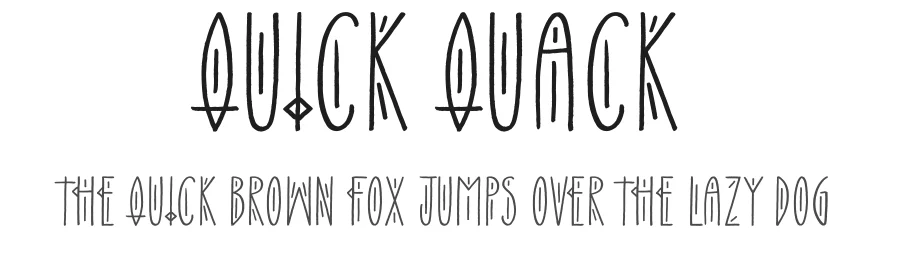
About Jump Burn IP Font
| Designer | Le Thi Thu Huong (Poemhaiku) |
Jump Burn IP Font is a decorative font that shines as a display or heading face. Pair it with a clean sans-serif or serif font for body text β the contrast creates a clear hierarchy while the two styles stay balanced and easy to read.
Jump Burn IP Font
by Poemhaiku